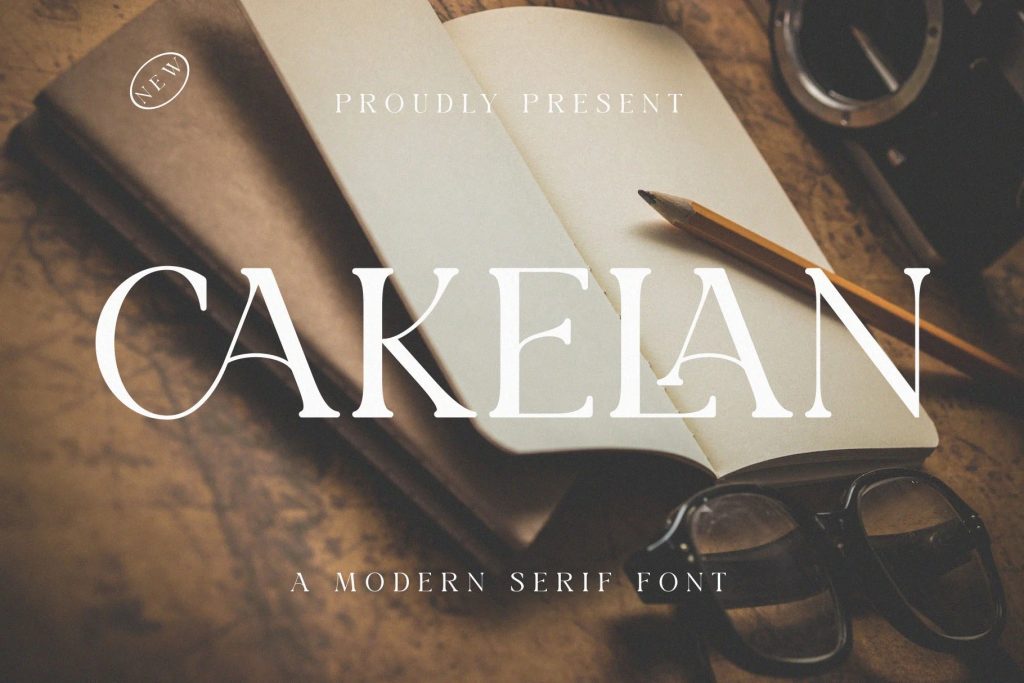
Cakelan Font
Designed to evoke a sense of luxury and sophistication, Cakelan is a modern serif font that seamlessly blends minimalism with elegant design. Whether you’re creating brand identities, social media visuals, or wedding stationery, Cakelan delivers a polished and high-end look.
One of the key features of Cakelan is its distinctive capital letters (A-Z), which are meticulously designed to give each letter a bold yet refined presence. These beautifully crafted capitals enhance the aesthetic of logos, headlines, and other important text elements.
With its versatility, Cakelan can adapt to a wide range of uses, from large-scale projects like posters and websites to detailed design work such as invitation cards or personal branding. Its luxurious appearance adds a stylish touch to any project, making it an essential tool for designers looking to create a lasting impression.